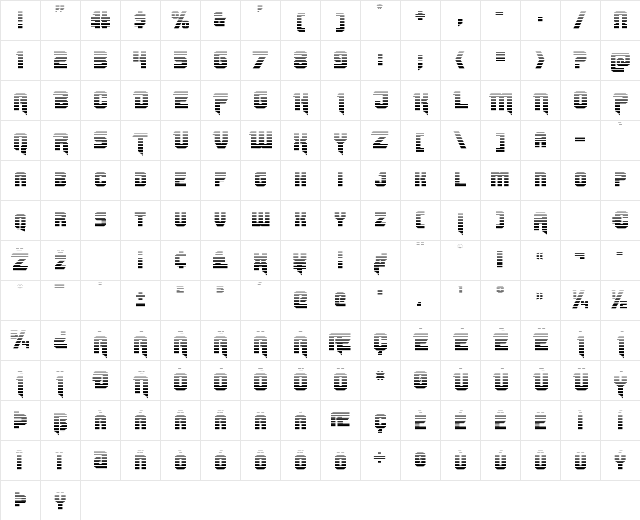
OmegaForce Gradient Regular
Design Context for OmegaForce Gradient Typeface
OmegaForce Gradient brings high-energy athletic personality to the page — its confident, muscular forms are built for impact.
Built for sports team identities, athletic apparel, event posters, and high-energy promotional material.
Pro Tip: OmegaForce Gradient thrives on contrast — try it large, bold, and tight against a clean background for maximum visual impact.